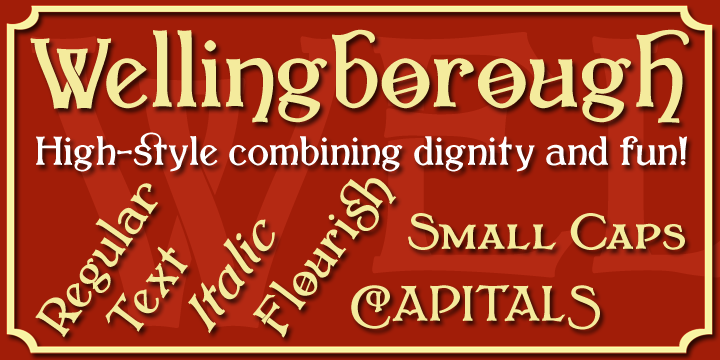
Wellingborough Font is a typeface that exudes timeless elegance and classic sophistication, making it an ideal choice for projects seeking a refined and distinguished aesthetic. Imagine it gracing the pages of historical documents, adding prestige to elegant invitations, defining sophisticated branding for luxury goods, or enhancing the classic feel of book covers. It's perfectly suited for editorial layouts that aim to evoke a sense of tradition, heritage, and high-end craftsmanship. This font lends an air of authority and grace to any design it touches, making it versatile for both print and digital media where gravitas is key.
What makes Wellingborough Font particularly exciting is its intricate detailing and inherent sense of timelessness. Whether it's a meticulously crafted serif or a beautifully balanced sans-serif with classic proportions, its design speaks to a rich typographic heritage. It brings a profound sense of establishment and formality, perfect for projects that demand gravitas, a distinguished look, and an air of authenticity. This font doesn't just convey information; it tells a story of tradition and enduring quality, ensuring your designs resonate with a sense of refined taste.
The Wellingborough Font family often provides a comprehensive range of weights and styles to meet diverse design requirements. You can typically find Wellingborough Regular, Wellingborough Italic, and Wellingborough Bold variants, allowing for clear hierarchy and visual interest. Depending on its specific design, it might also include Wellingborough Light or even unique display weights tailored for headlines. Explore the enduring beauty and versatility of Wellingborough Font Free Download for your next project.